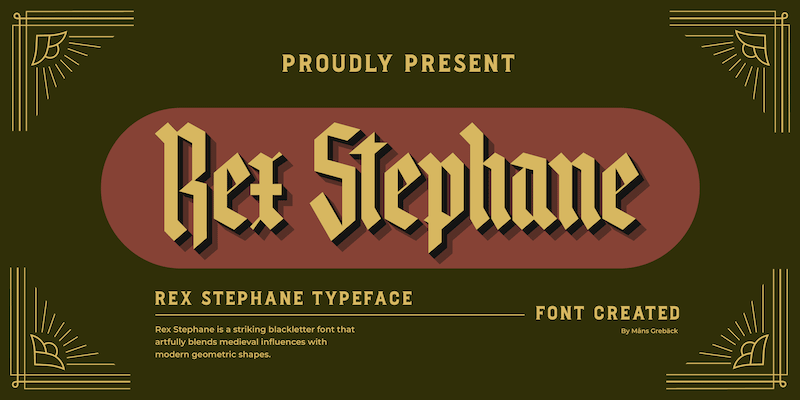
Font name: | Rex Stephane |
NOTE: This font is for PERSONAL USE ONLY! To purchase a commercial license, visit: http://mn.sg/rex-stephane Rex Stephane is a striking blackletter font that artfully blends medieval influences with modern geometric shapes. For questions, please visit www.mn.sg/faq Visit my website: http://www.mansgreback.com Like my fonts on Facebook: http://www.facebook.com/mansgreback |